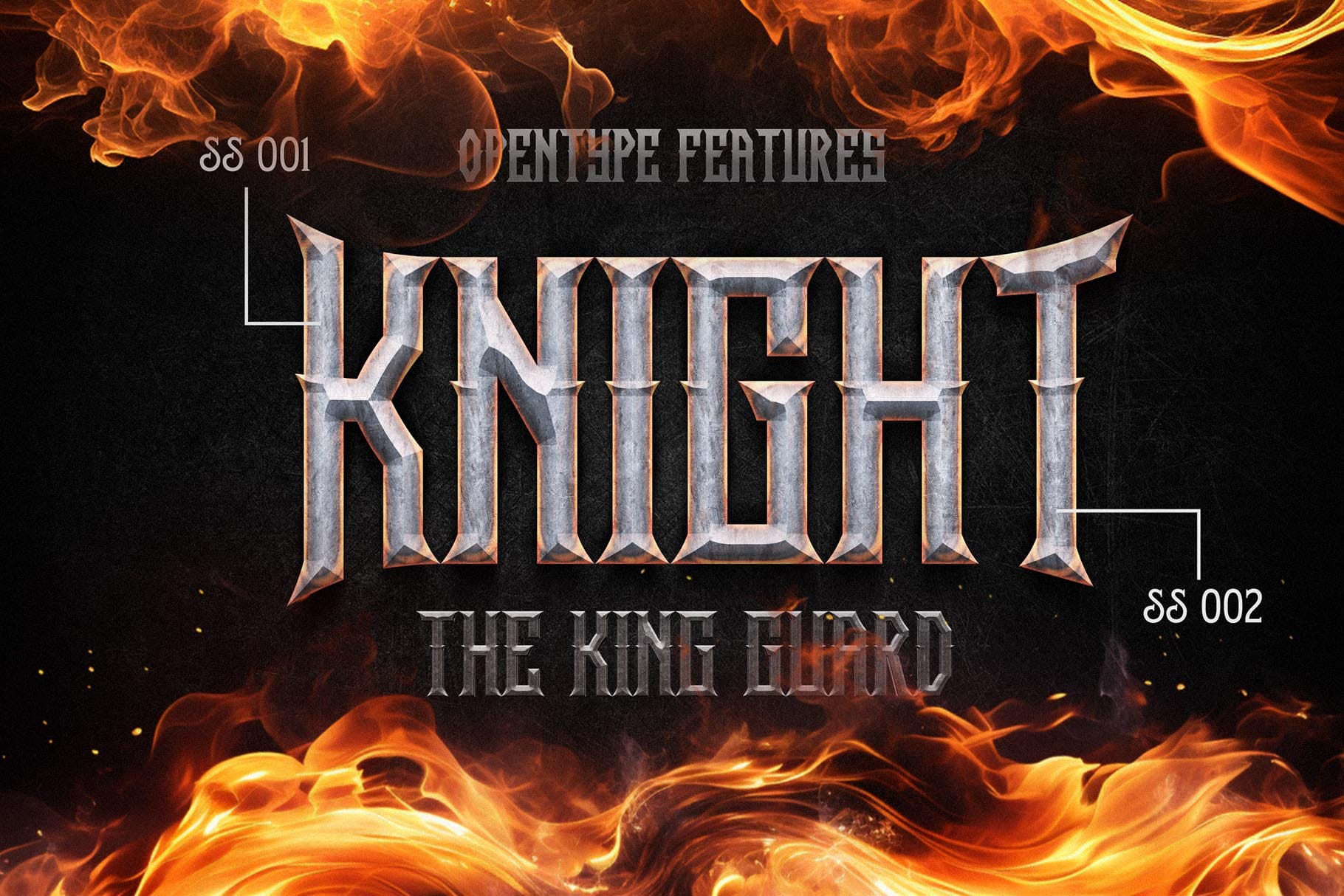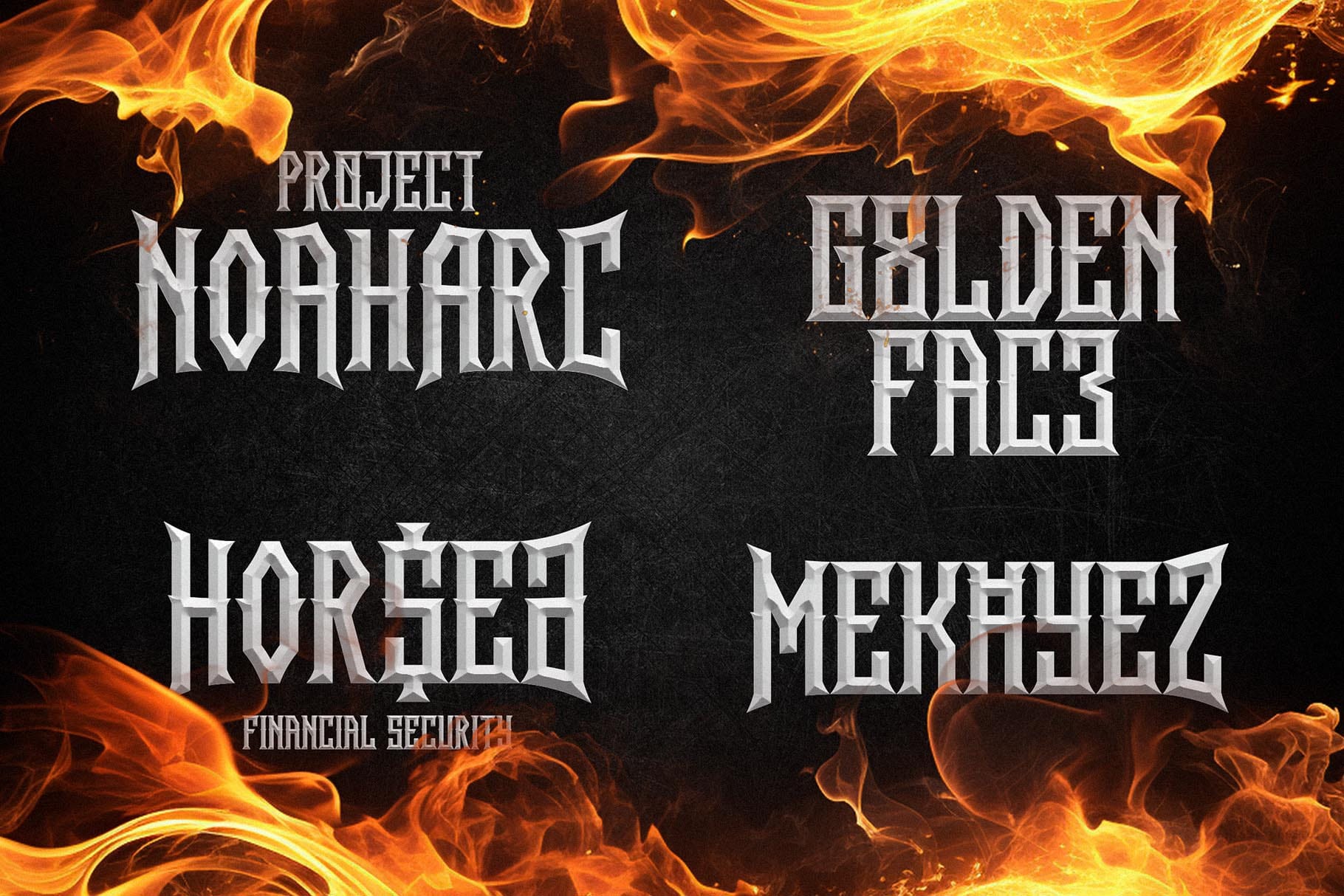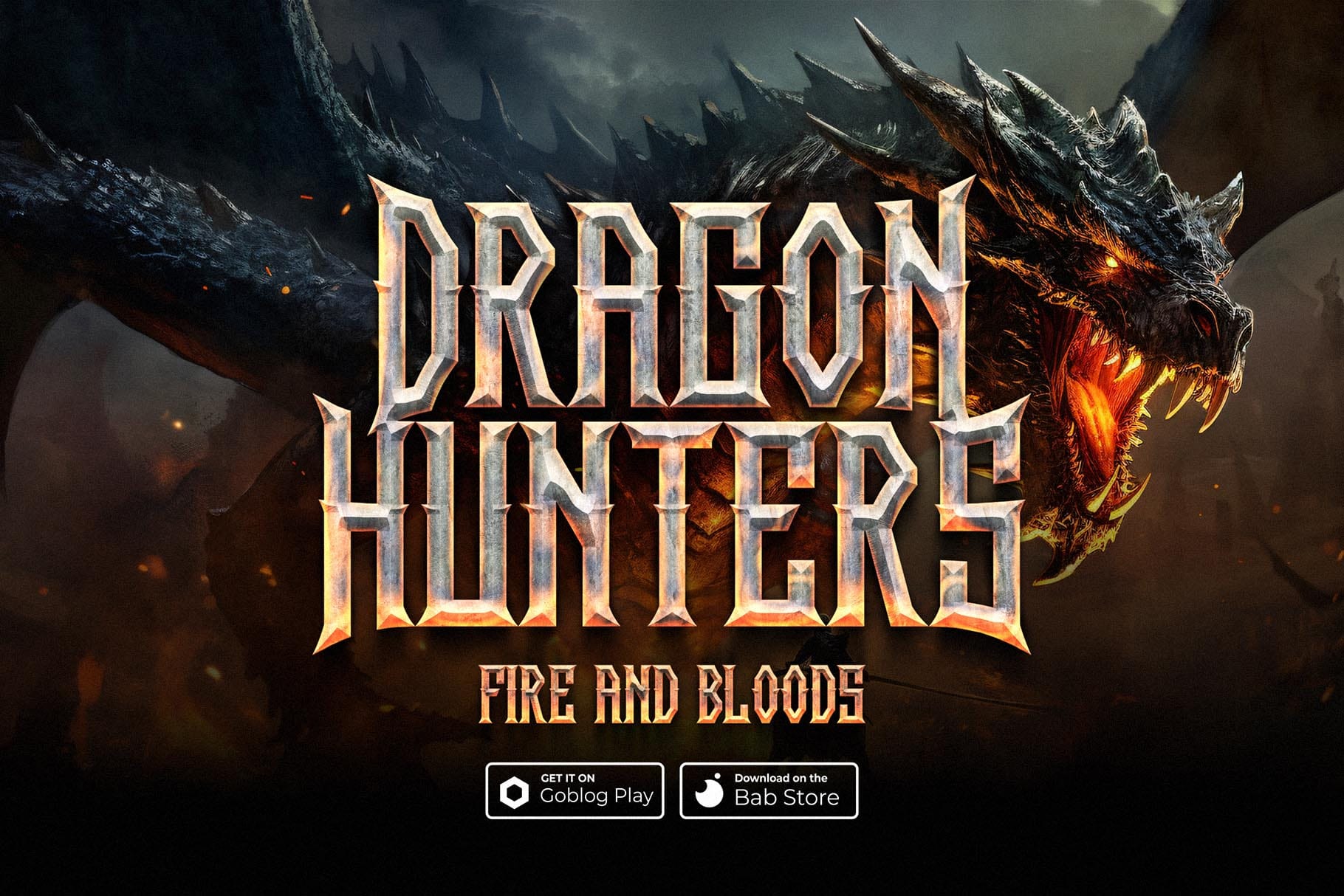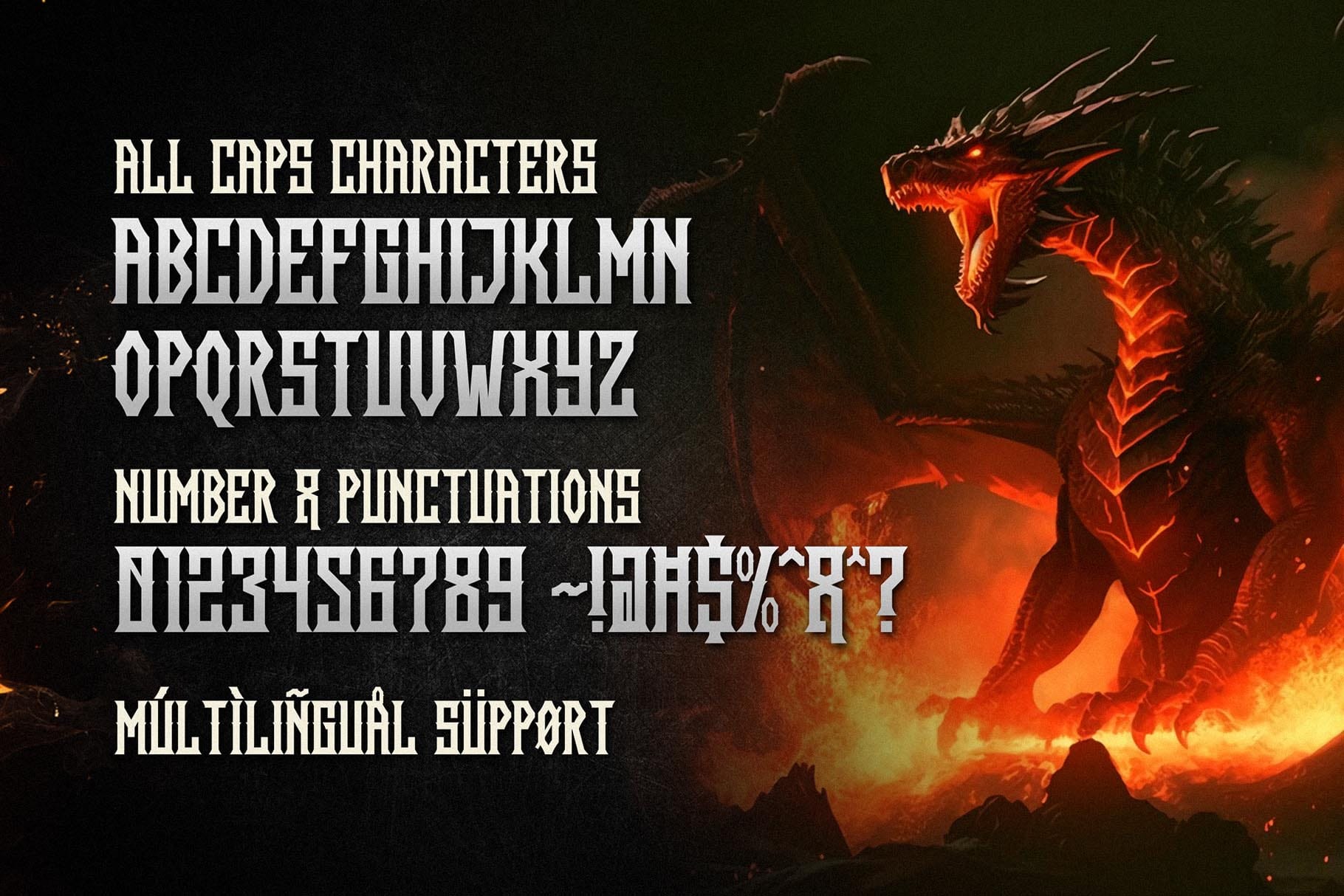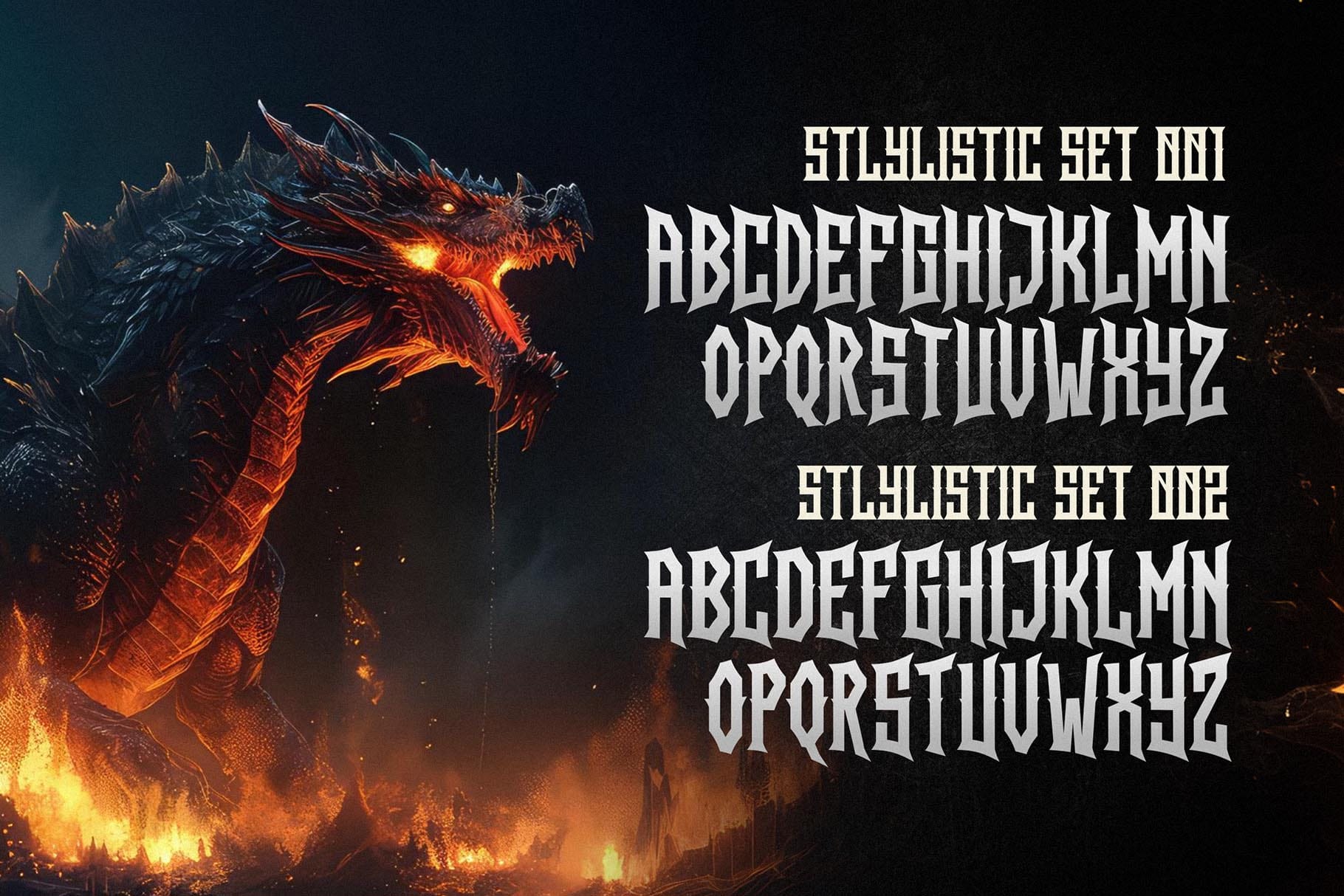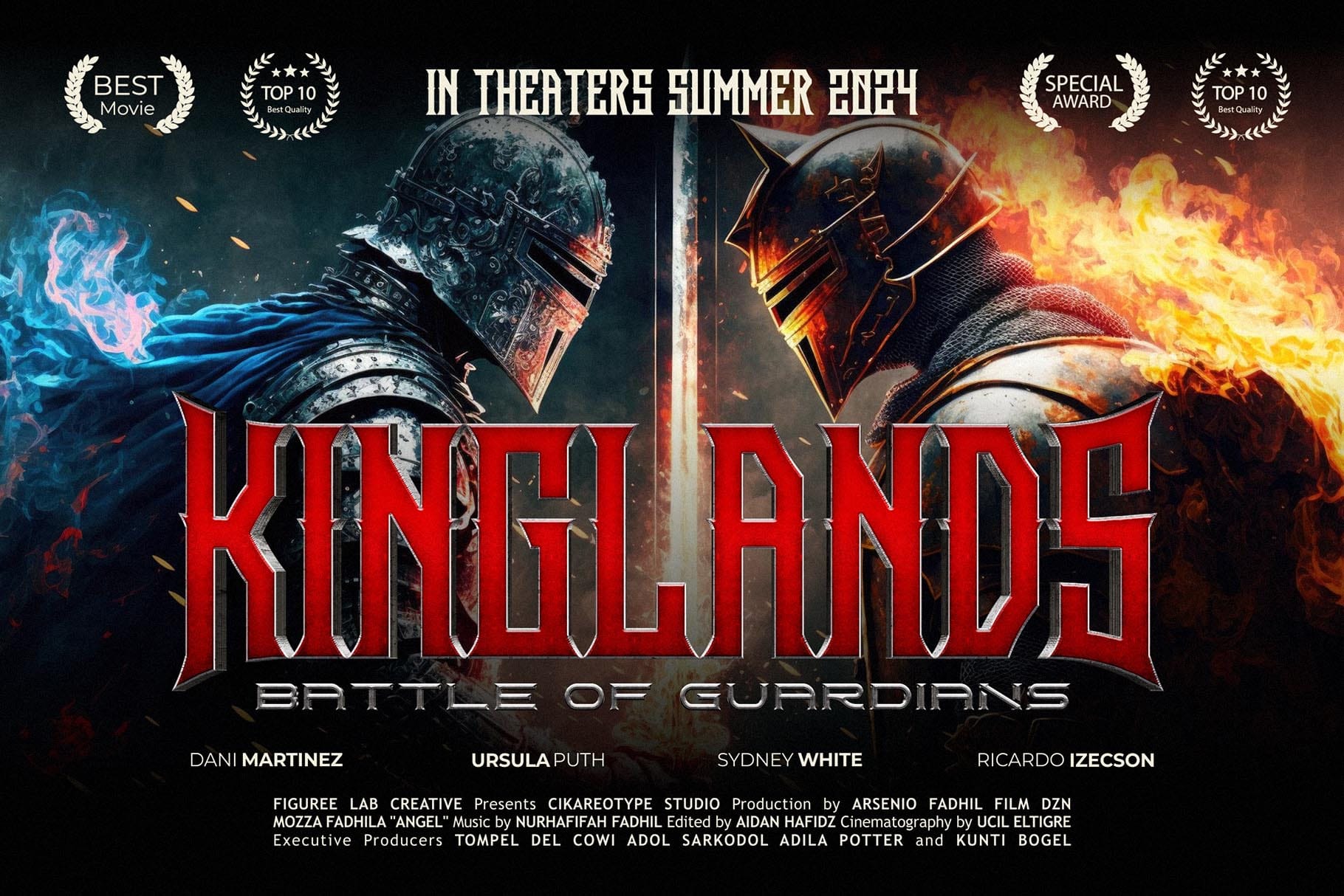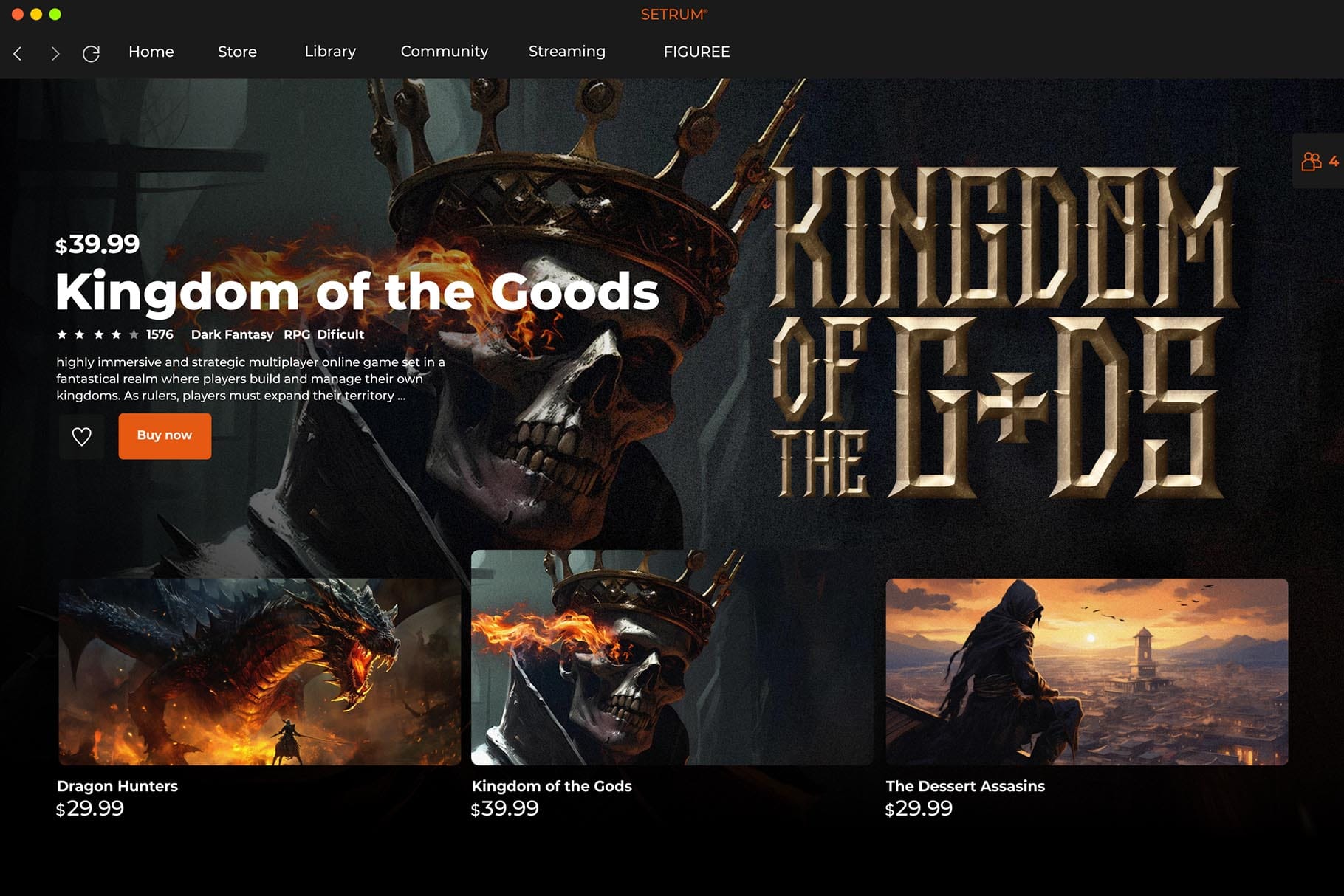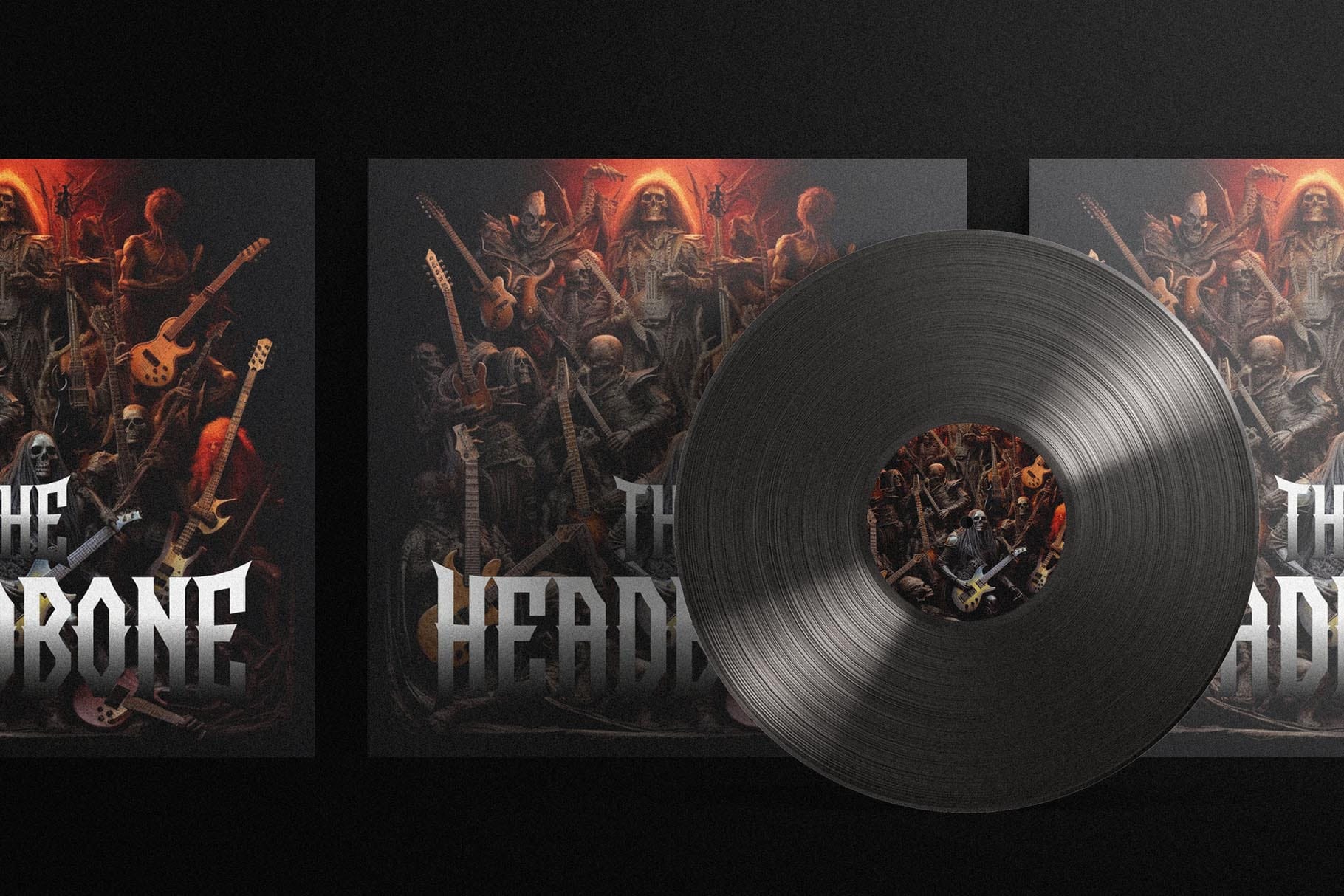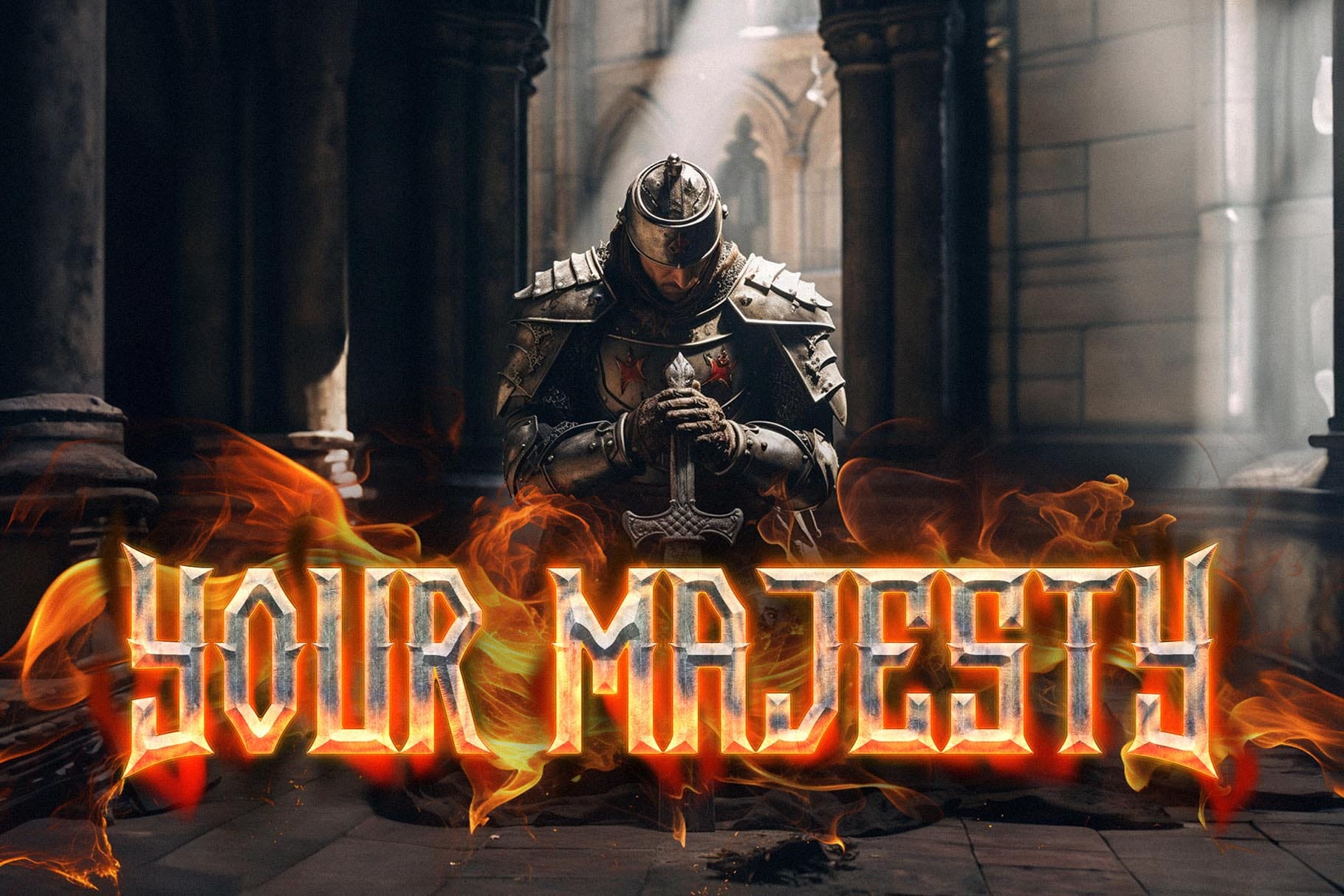
Dragonit Medieval Strong Display Font for Commanding Visuals
Dragonit is a medieval strong display font created for designs that need presence, history, and visual authority. With its strong display personality and medieval-inspired direction, Dragonit helps your words feel bold, dramatic, and memorable from the first glance.
This font is a strong choice for designers working on fantasy branding, game titles, poster layouts, apparel graphics, packaging concepts, event visuals, and creative merchandise. It gives your typography a powerful character without needing overly complex composition.
For brand owners, Dragonit offers a distinctive way to build a visual identity that feels brave, old-world, and highly recognizable. For designers, it gives you a focused display font that can carry a headline, logo mark, or central text layout with confidence.
Dragonit carries a medieval display style with a bold and commanding tone. Its visual personality suits projects that need a historic, fantasy, warrior-like, or legendary mood. The name itself gives a strong creative direction, making it suitable for visuals inspired by castles, dragons, folklore, ancient stories, and heroic adventures.
As a display font, Dragonit is best used where the typography needs to become the main visual element. It can bring strength to short words, brand names, title treatments, and large-scale compositions. Use it for designs that need a strong front-facing identity rather than quiet body text.
The medieval feel makes Dragonit especially useful for fantasy product branding, game-related graphics, themed merchandise, book covers, posters, and packaging that needs a dramatic historic impression. It can also work well for modern designs that borrow from old-world references, giving a project a more crafted and distinctive look.
Best Use Cases for This Medieval Strong Display Font
Dragonit is designed for projects where typography needs to be bold, expressive, and easy to recognize. It works especially well for logo designs, poster headlines, branding concepts, apparel artwork, merchandise, labels, fantasy-themed packaging, game titles, event graphics, and digital promotional visuals.
For packaging designers, Dragonit can help create a strong product face, especially for items that need a bold fantasy, vintage, or heroic personality. For apparel designers, it can be used on t-shirts, hoodies, patches, and statement merchandise where the text needs to feel powerful.
For content creators and digital product sellers, Dragonit can bring a strong typographic style to social media graphics, printable posters, digital templates, thumbnails, and promotional banners. Its display nature makes it ideal for short, impactful wording rather than long reading paragraphs.
- Medieval strong display font style
- Standard characters included
- Punctuation included
- SS01 and SS02 included
Designers love Dragonit because it gives a project a clear visual direction quickly. Instead of using a plain display font and forcing the medieval mood through extra decoration, Dragonit already brings that bold historic atmosphere into the letterforms.
The included SS01 and SS02 give designers more stylistic control when building titles, logos, and featured text. With PUA encoding provided, users can access encoded characters more easily in compatible software. Multilingual support also makes Dragonit more useful for global-facing creative projects and international product visuals.
Dragonit is especially helpful when your design needs strong atmosphere. It can turn a simple wordmark into something more cinematic, more memorable, and more aligned with fantasy or medieval-inspired branding. Whether you are designing a fantasy poster, a game title, a bold apparel graphic, or a packaging label with a legendary mood, Dragonit gives you a strong typographic foundation.
Pair Dragonit with a cleaner or more modern typeface when you need contrast between headline and supporting text. For a strong display-and-sans combination, try pairing it with Midnight Workers, a modern sans serif from the Figuree catalogue that can help balance Dragonit’s bold medieval personality.
For a more powerful and rugged direction, pair Dragonit with Roads Block in layouts that need a heavy visual system for posters, apparel, and event graphics.
For a darker decorative pairing, Black Fire can support fantasy-inspired design concepts, especially when the project needs drama, intensity, or a stronger themed identity. These pairings are selected from the Figuree font catalogue, which recommends using catalogue fonts only for internal pairing suggestions and related recommendations.
Dragonit is made for designers who want typography with strength, story, and a bold medieval edge. Use it when your project needs to feel legendary, dramatic, and visually confident—whether you are building a fantasy brand, designing a poster, creating apparel, or shaping a packaging concept with a stronger identity.